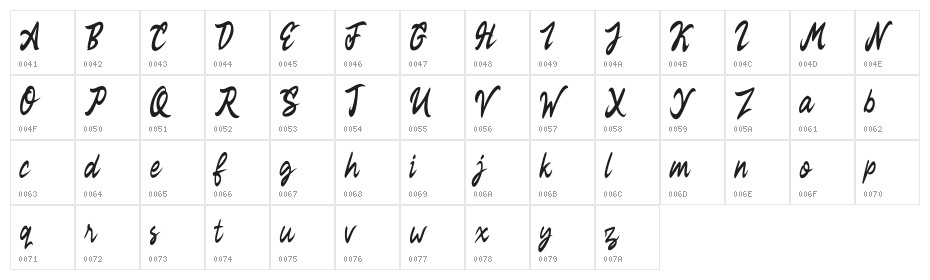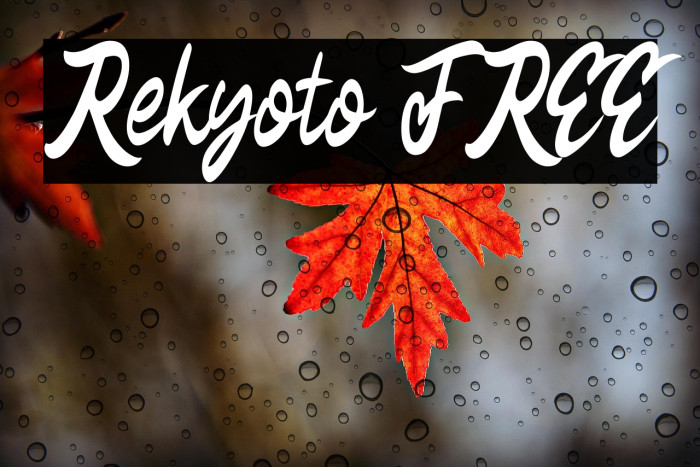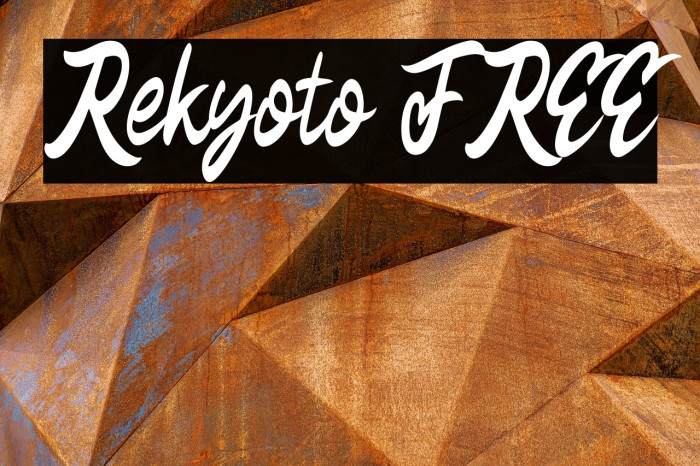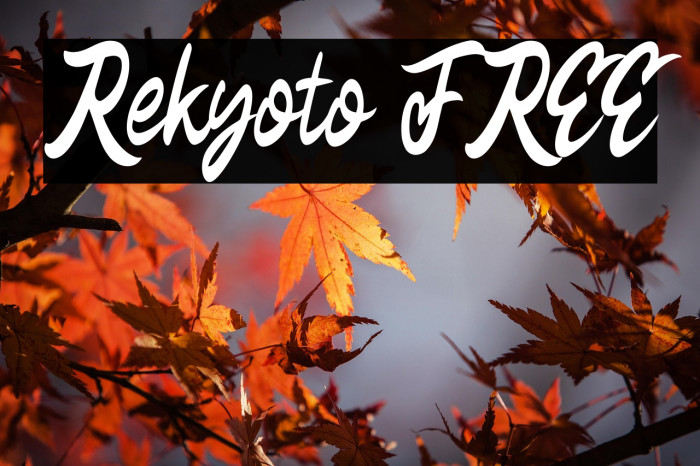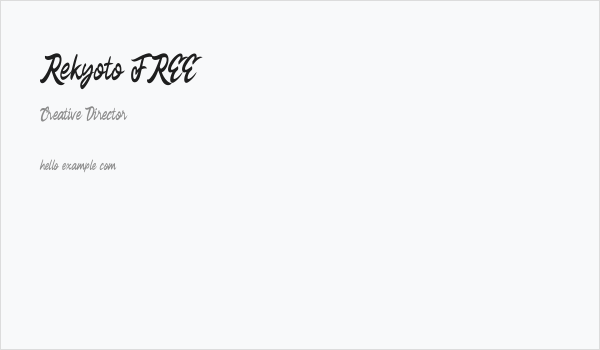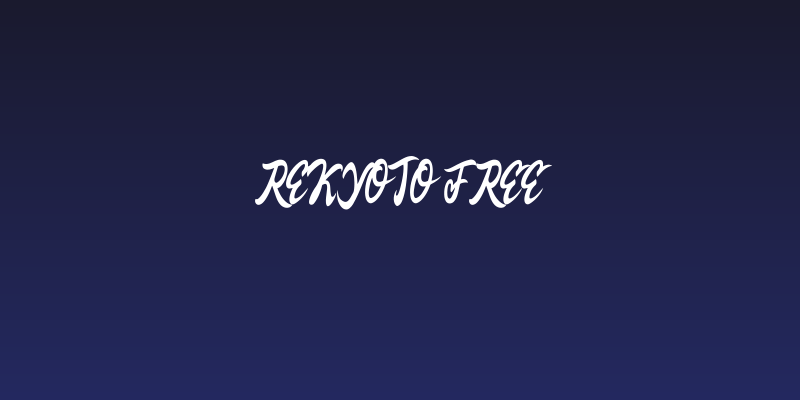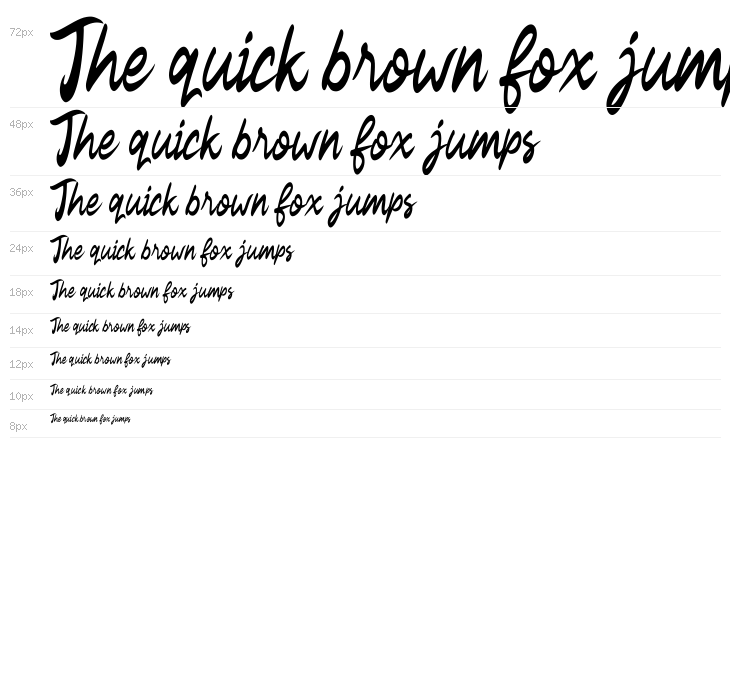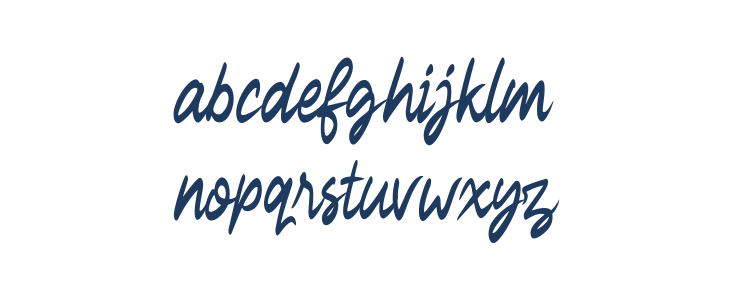
Rekyoto FREE Font
Rekyoto FREE Description
This font features a bold, cursive style with a dynamic and flowing appearance. The letters are interconnected, creating a sense of movement and elegance. The strokes are thick and consistent, providing a strong visual impact. The uppercase letters are slightly more ornate, while the lowercase letters maintain a smooth and continuous flow. This font is well-suited for designs that require a personal touch or a sense of sophistication. The overall look is both modern and classic, making it versatile for various design needs.
| Proposed Projects | Ideal for wedding invitations, branding, logos, and elegant packaging designs. |